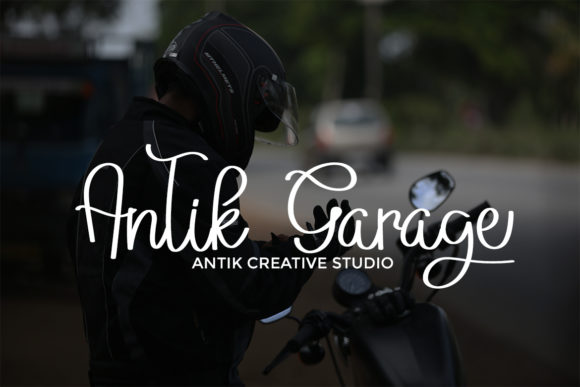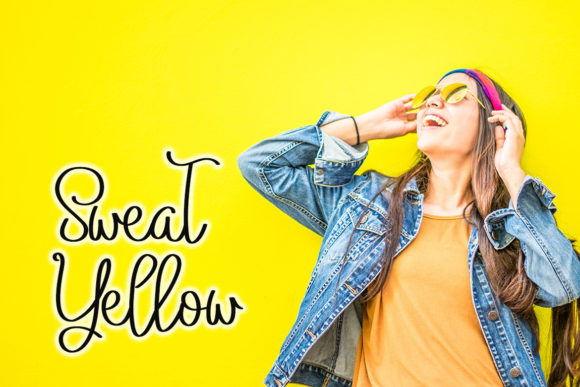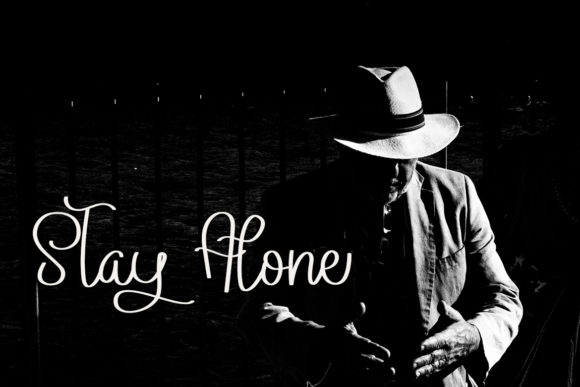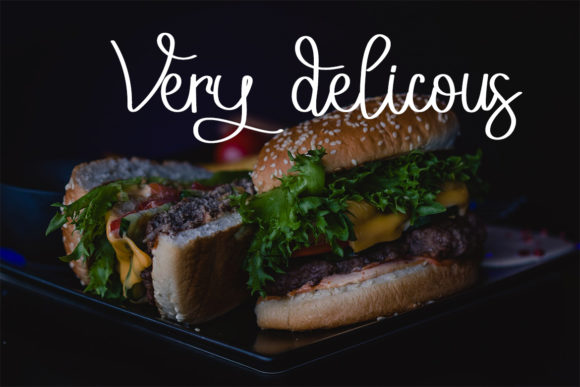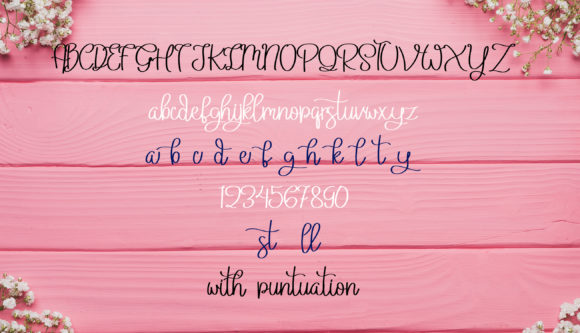
Bucharest Font: Elevate Your Designs with Elegance and Sophistication
In the world of typography, a beautiful font can make all the difference in elevating your designs from ordinary to extraordinary. If you’re a designer or crafter looking for a fresh, modern, and elegant script font, look no further than Bucharest Font. This stunning font is perfect for a wide range of projects, from wedding invitations and greeting cards to social media quotes, branding, and more.
The Beauty of Bucharest Font
Bucharest Font is a sweet script font that exudes elegance and sophistication. Its modern design makes it perfect for designers and crafters who want to add a touch of luxury to their work. The font’s fresh and clean lines ensure that it remains highly legible, even at smaller sizes, making it versatile for use in various applications.
What Makes Bucharest Font So Versatile?
One of the standout features of Bucharest Font is its incredible versatility. Its elegant and modern design makes it suitable for a wide range of projects, including:
- Wedding Invitations: Add a touch of romance and sophistication to your wedding invitations with Bucharest Font.
- Greeting Cards: Create beautiful and heartfelt greeting cards for special occasions like birthdays, anniversaries, and holidays.
- Social Media Quotes: Elevate your social media quotes with a touch of elegance and sophistication, making them stand out in a crowded feed.
- Branding: Use Bucharest Font to create stunning brand identities that exude luxury and sophistication.
Why Choose Bucharest Font?
With so many fonts available, why choose Bucharest Font? Here are just a few reasons why this font stands out from the rest:
- Unique Design: Bucharest Font boasts a unique and modern design that will set your work apart from the rest.
- Elegant and Sophisticated: This font exudes elegance and sophistication, making it perfect for high-end designs.
- Highly Legible: The font’s clean lines and fresh design ensure that it remains highly legible, even at smaller sizes.
- Versatile: Bucharest Font is suitable for a wide range of projects, from wedding invitations to branding.
Tips for Using Bucharest Font
To get the most out of Bucharest Font, here are a few tips to keep in mind:
- Pair with Other Fonts: Experiment with pairing Bucharest Font with other fonts to create stunning contrast and visual interest.
- Use in Combination with Images: Combine Bucharest Font with beautiful images to create visually stunning designs.
- Experiment with Colors: Try out different color combinations to find the perfect match for your design.
| Font Name | Bucharest Font |
| Author | khafalab |
In conclusion, Bucharest Font is a beautiful and sweet script font that is perfect for designers and crafters looking to elevate their designs with elegance and sophistication. Its modern design, versatility, and high legibility make it suitable for a wide range of projects, from wedding invitations to branding. With its unique design and elegant feel, Bucharest Font is sure to become a favorite in your font collection.